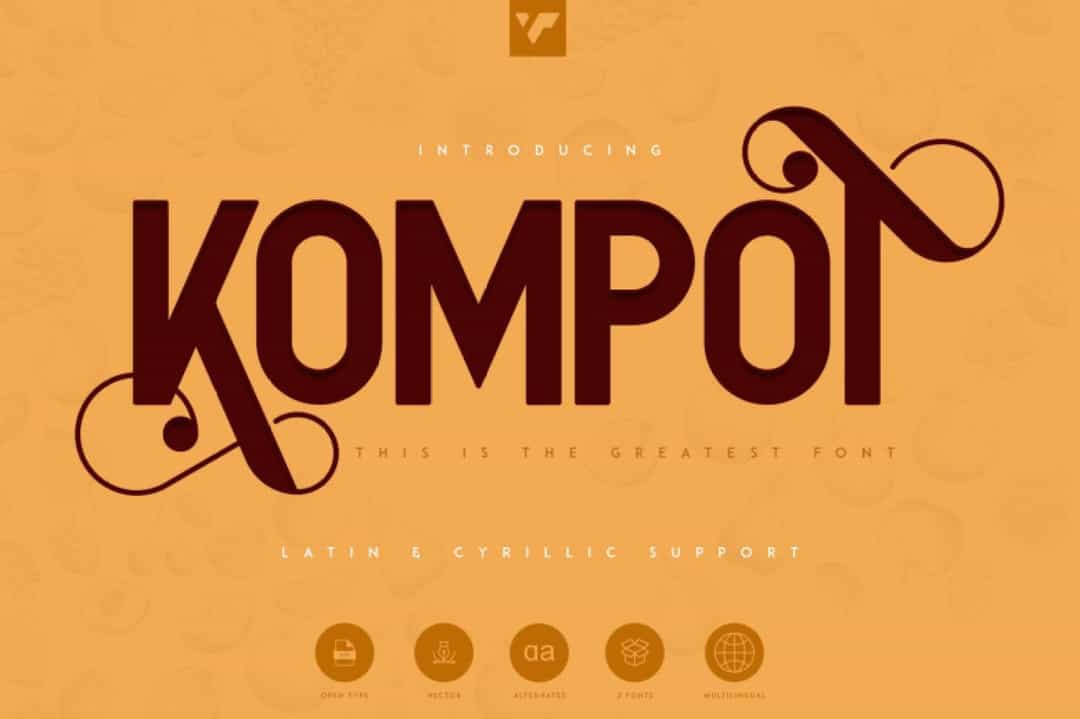
Kompot Sans Serif Font is one of the most beautiful fonts around… A typeface with two designs! Complimenting its elegant vintage vibe are two styles – both featuring alternate glyphs for multilingual languages support as well as small and large font sizes which work well across them both!Additionally, basic Latin, advanced Latin characters as well as basic Cyrillic as well as advanced Cyrillic characters can all be found!